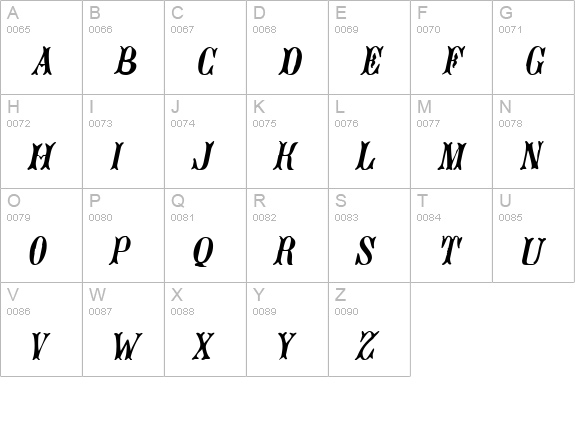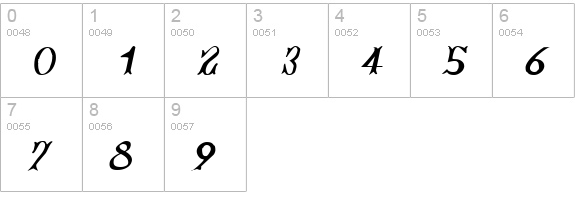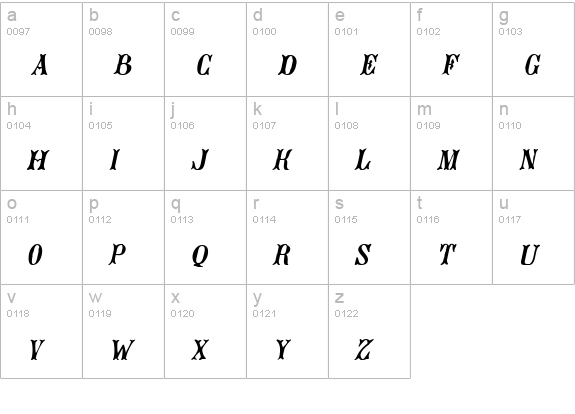
JacquesRoughcut Italic Font Details
JacquesRoughcut Italic is a distinctive, italic variant in the JacquesRoughcut typeface family \xE2\x80\x94 well suited to design and typography projects.
Introducing JacquesRoughcut Italic, a captivating and versatile font that brings a touch of elegance and sophistication to any design project. With its sleek and stylish appearance, JacquesRoughcut Italic is the perfect choice for those looking to add a unique and refined look to their creative works. This font boasts a distinctive italicized style that exudes confidence and modernity. Its sharp and precise lines combine with a subtle curvature, creating a harmonious balance that is both visually appealing and easy to read. Whether used for headlines, logos, or body text, JacquesRoughcut Italic effortlessly captures attention and leaves a lasting impression. The beauty of JacquesRoughcut Italic lies not only in its design, but also in its accessibility. This font is freely available to download at FontsMarket.com, making it easily accessible to designers, artists, and enthusiasts alike. Its availability ensures that anyone can incorporate this stunning font into their projects without any barriers. Furthermore, JacquesRoughcut Italic offers a wide range of language support, making it suitable for diverse audiences and global applications. Its versatility allows it to adapt seamlessly to various design contexts, from print materials to digital platforms, ensuring a consistent and professional look across all mediums. Whether you're working on branding, advertising, packaging, or any other creative endeavor, JacquesRoughcut Italic is a font that will elevate your designs to new heights. Its timeless appeal, combined with its ease of use and availability, makes it a must-have for any designer's toolkit. Experience the elegance and sophistication of JacquesRoughcut Italic today. Download it for free at FontsMarket.com and unleash the full potential of your design projects.